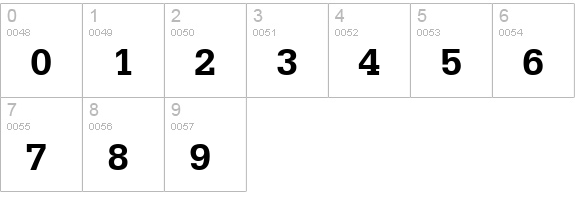
Metron SSi Bold is a strong, high-contrast variant in the Metron typeface family \xE2\x80\x94 well suited to headlines, attention-grabbing titles, and strong calls-to-action.
Metron SSi Bold font is a modern and stylish typeface that exudes confidence and sophistication. With its sleek lines and bold design, this font is perfect for making a statement in any project. Whether you're designing a logo, poster, or website, Metron SSi Bold will give your text a strong and impactful look. The best part? Metron SSi Bold font is available for free download at FontsMarket.com. This means you can easily access this high-quality font without any cost, making it a valuable addition to your font library. Elevate your designs with Metron SSi Bold and make a lasting impression on your audience.